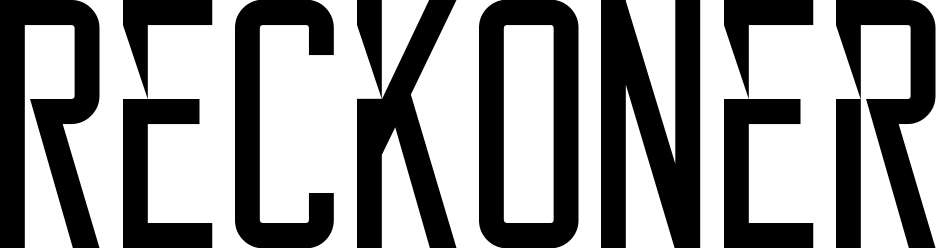
Reckoner Font
Designed byAlex Dale
Turn your words into a modern design through this casual Reckoner, a new high-quality sans serif font accompanied by two different files to include flexibility and diversity in your writing result.
It is considered a modern and approachable font that can be pointed out in many digital publications’ designs. Although it deprives us of lowercase letters, it can be effective for designing any kind of headlines, posters, games, websites, urban, branding, etc.